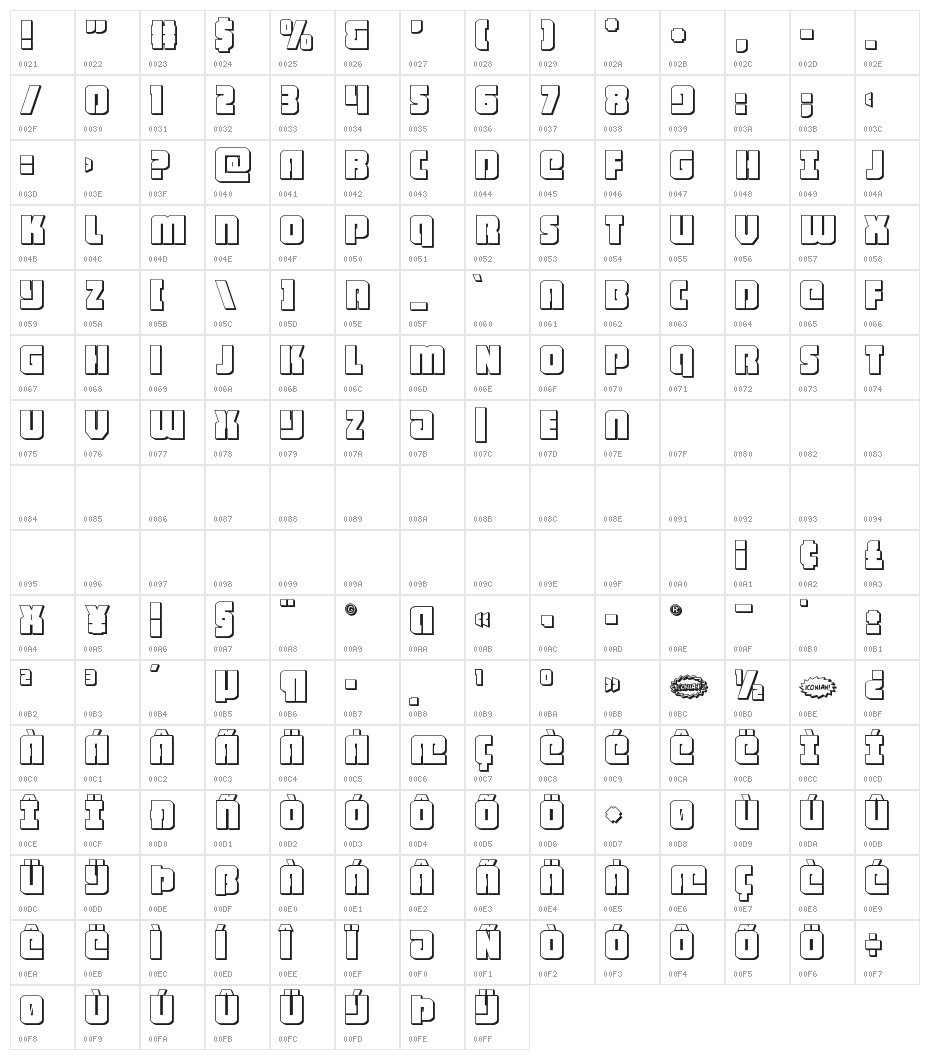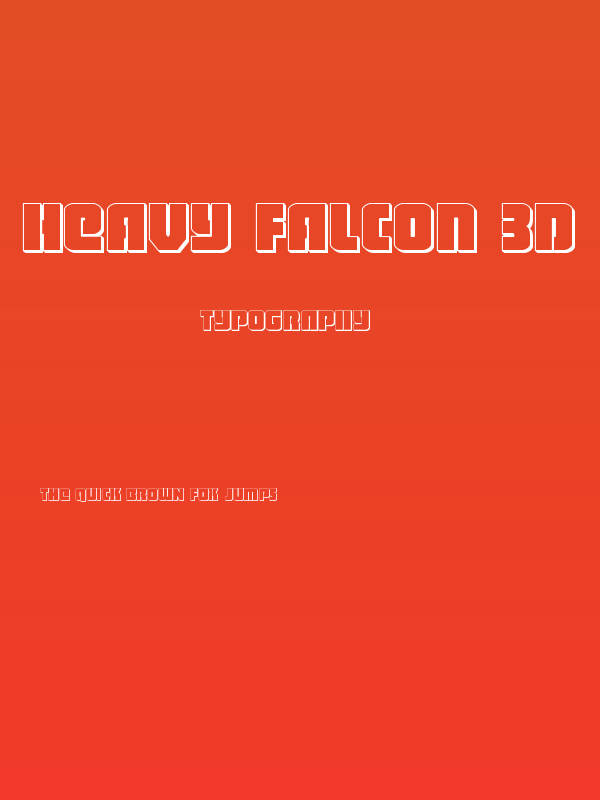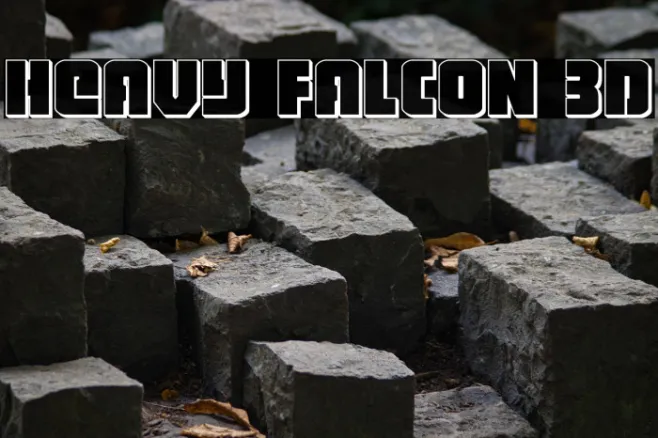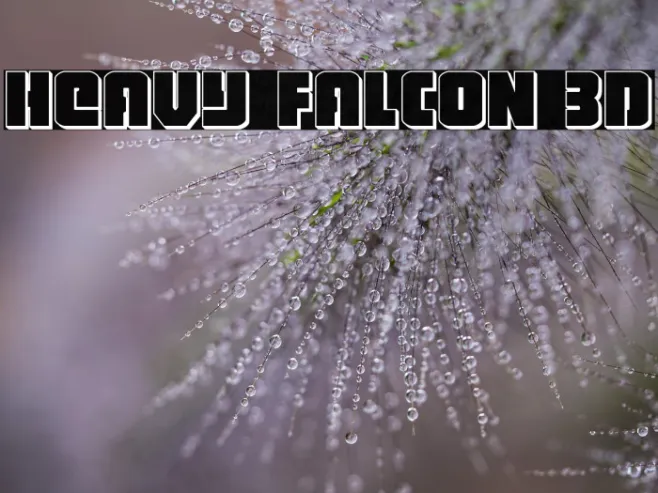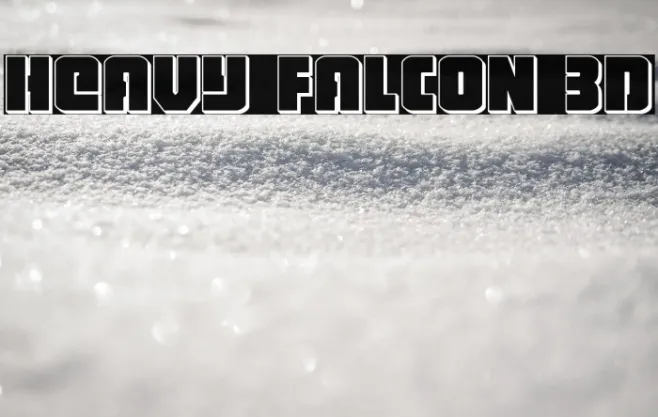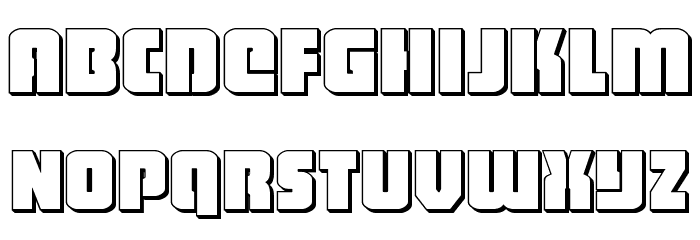
Heavy Falcon 3D Font
Heavy Falcon 3D Description
This font features a bold, three-dimensional design with a strong, geometric structure. The characters are blocky and robust, with a distinct shadow effect that gives them a sense of depth and solidity. The uppercase letters are particularly striking, with their thick lines and angular shapes. The numbers and special characters maintain the same bold style, ensuring consistency across all elements. This font is ideal for making a strong visual impact, with its eye-catching design and modern aesthetic.
| Proposed Projects | Ideal for posters, headlines, logos, and any design requiring a bold, impactful statement. |